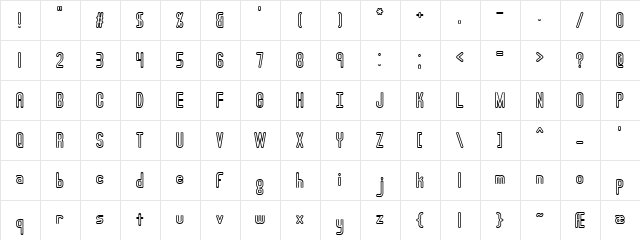
Lucid Type A Outline (BRK) Regular
Design Context for Lucid Type A Outline (BRK) Typeface
Lucid Type A Outline (BRK) is built around its visual character rather than neutral utility — its distinctive forms are designed to make an impression at display sizes.
Font Pairing: Pair with a clean neutral sans-serif for body copy to let Lucid Type A Outline (BRK)'s character lead without overwhelming the composition.
Pro Tip: Treat Lucid Type A Outline (BRK) as the centrepiece of your typographic hierarchy. One strong heading set in a decorative face can carry an entire layout.